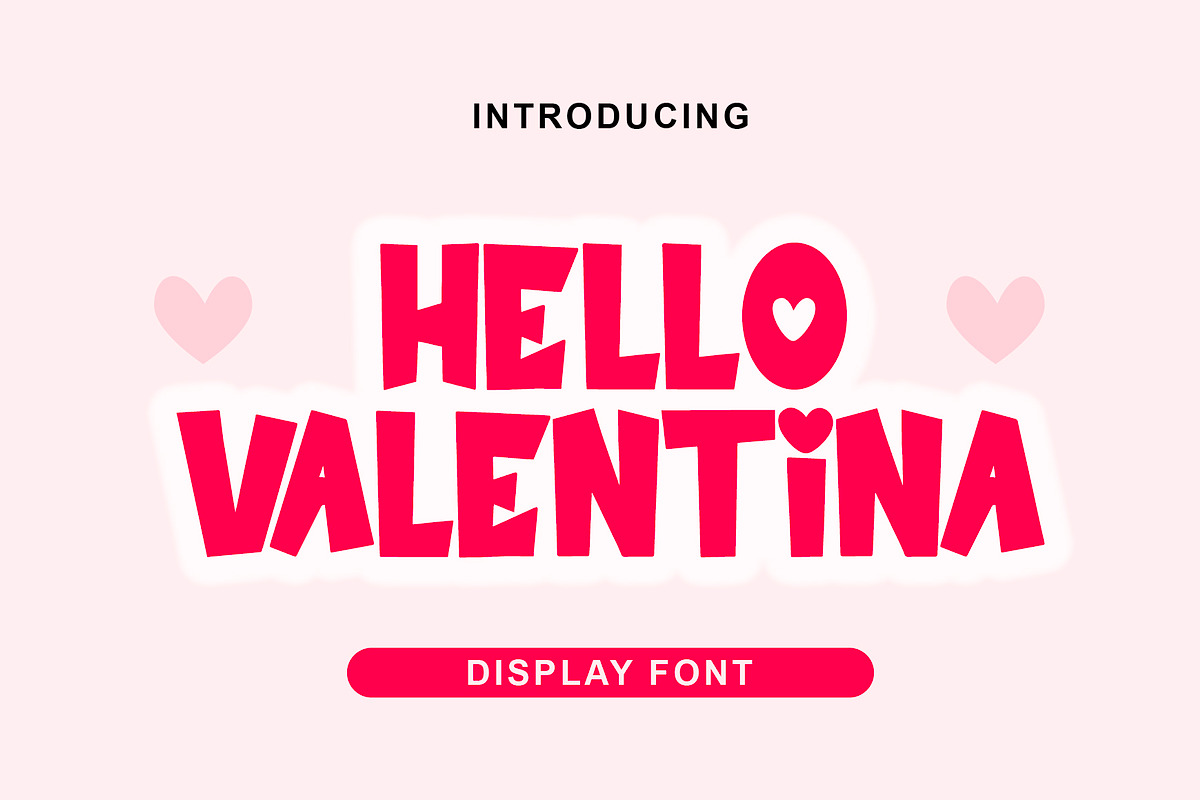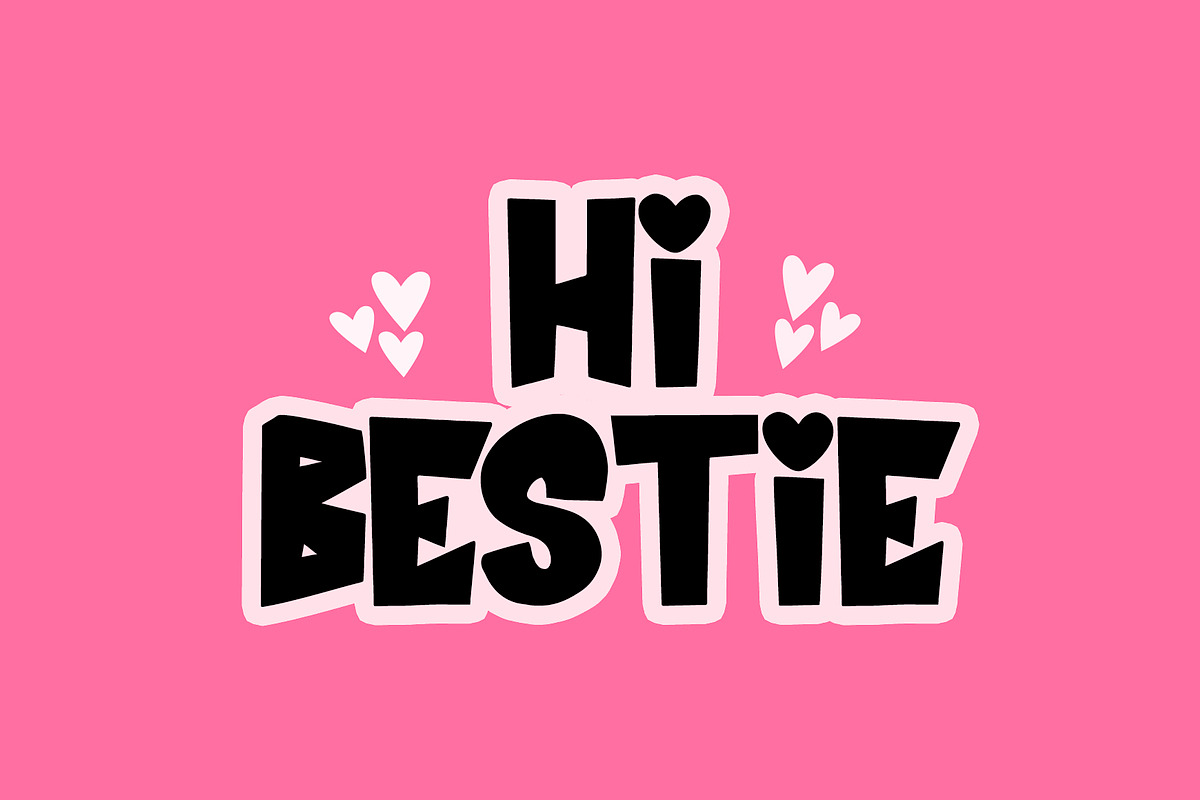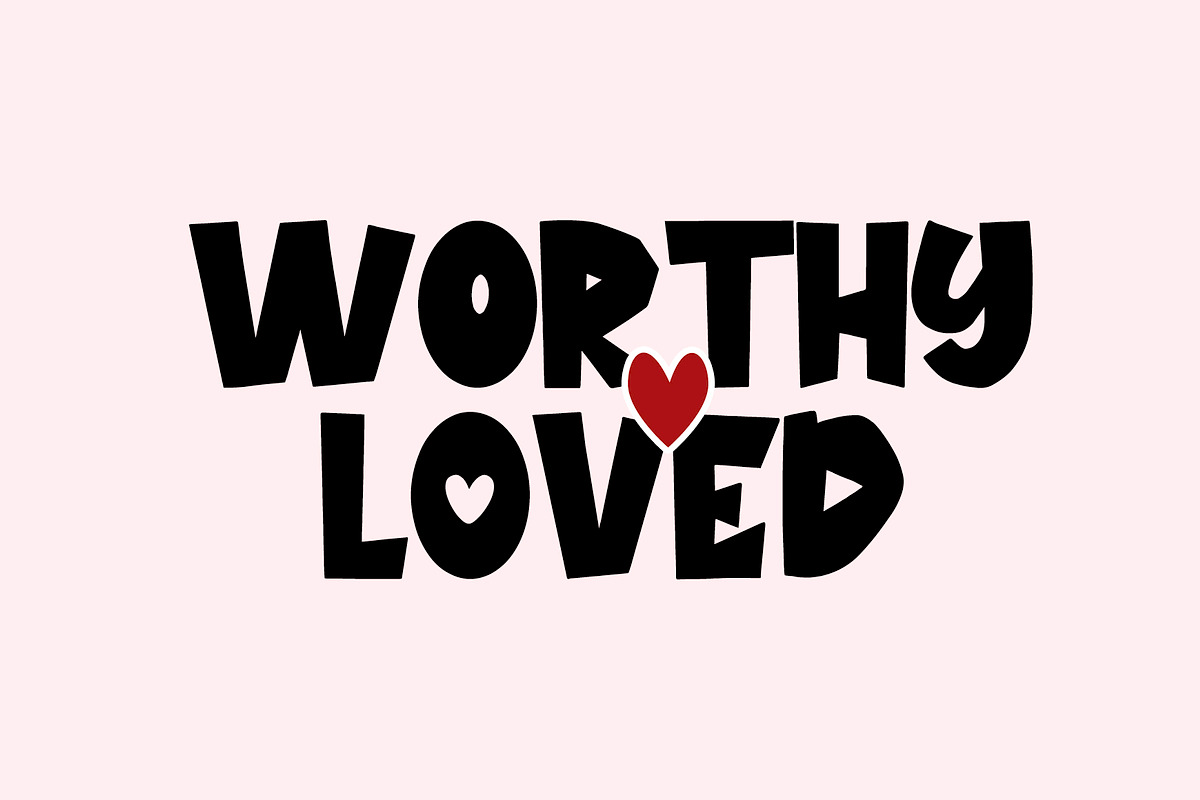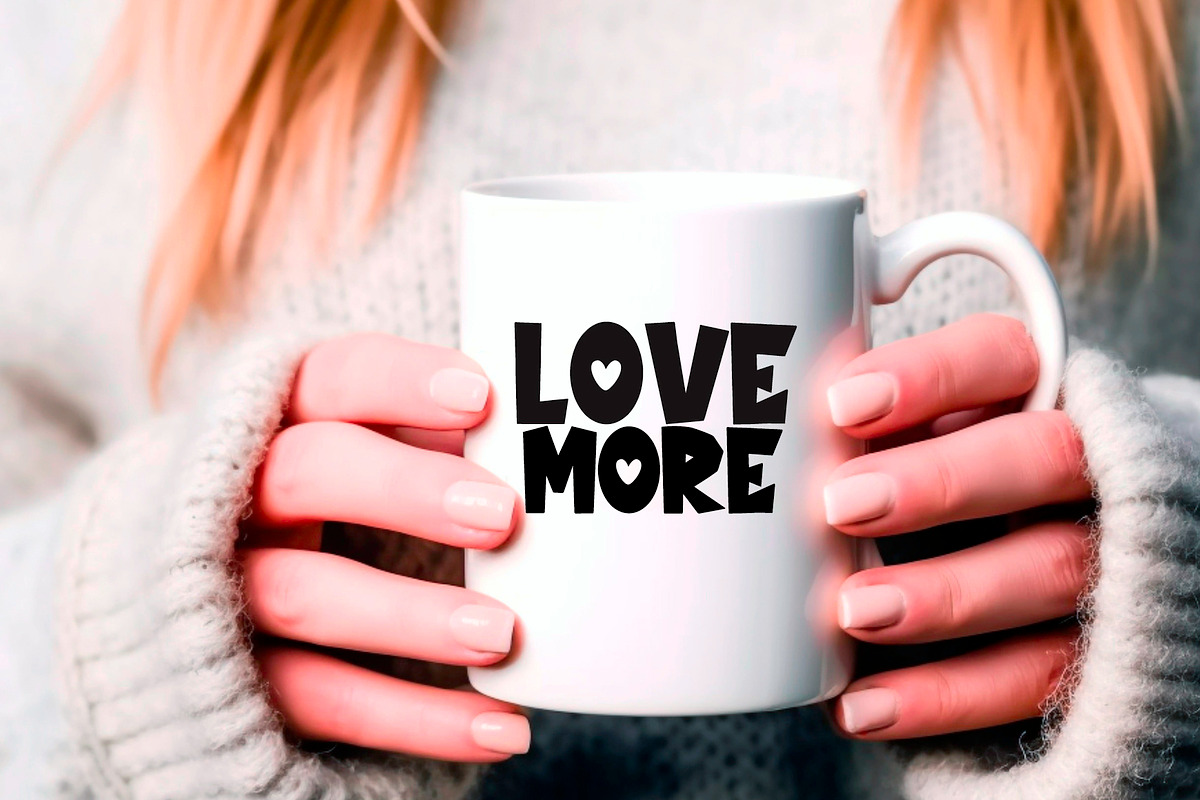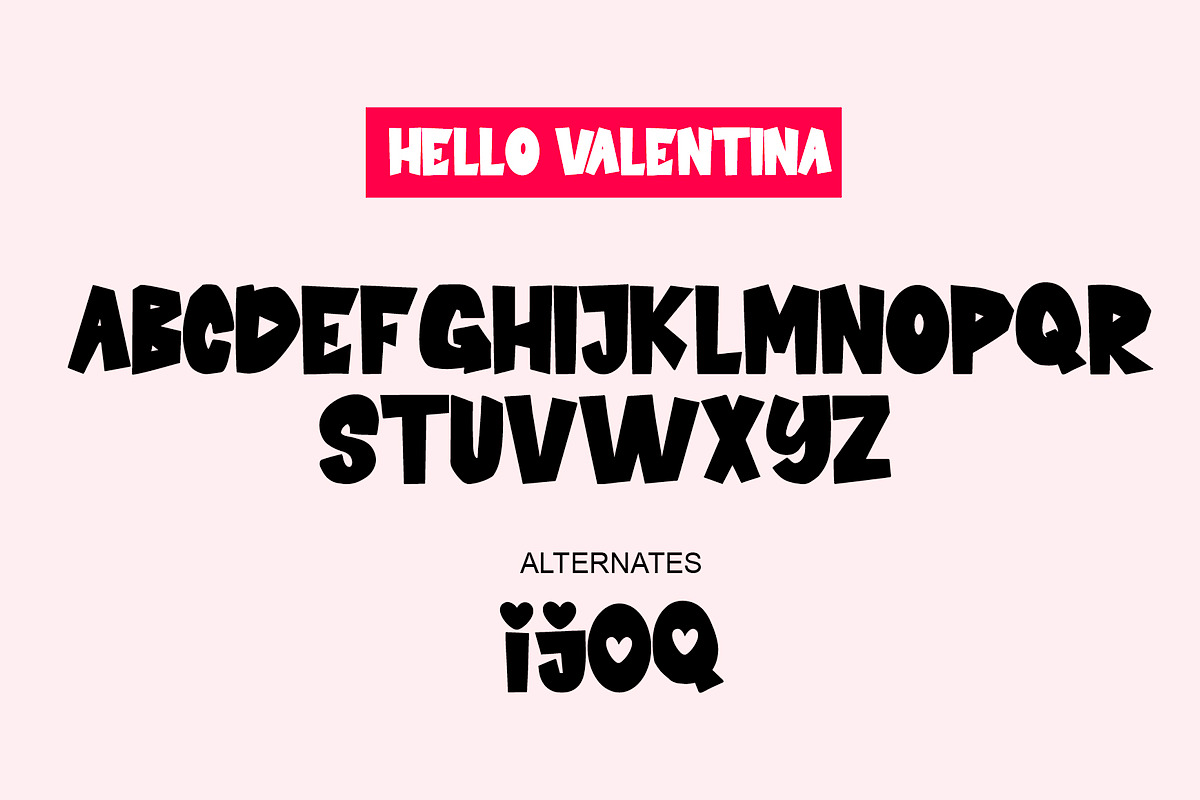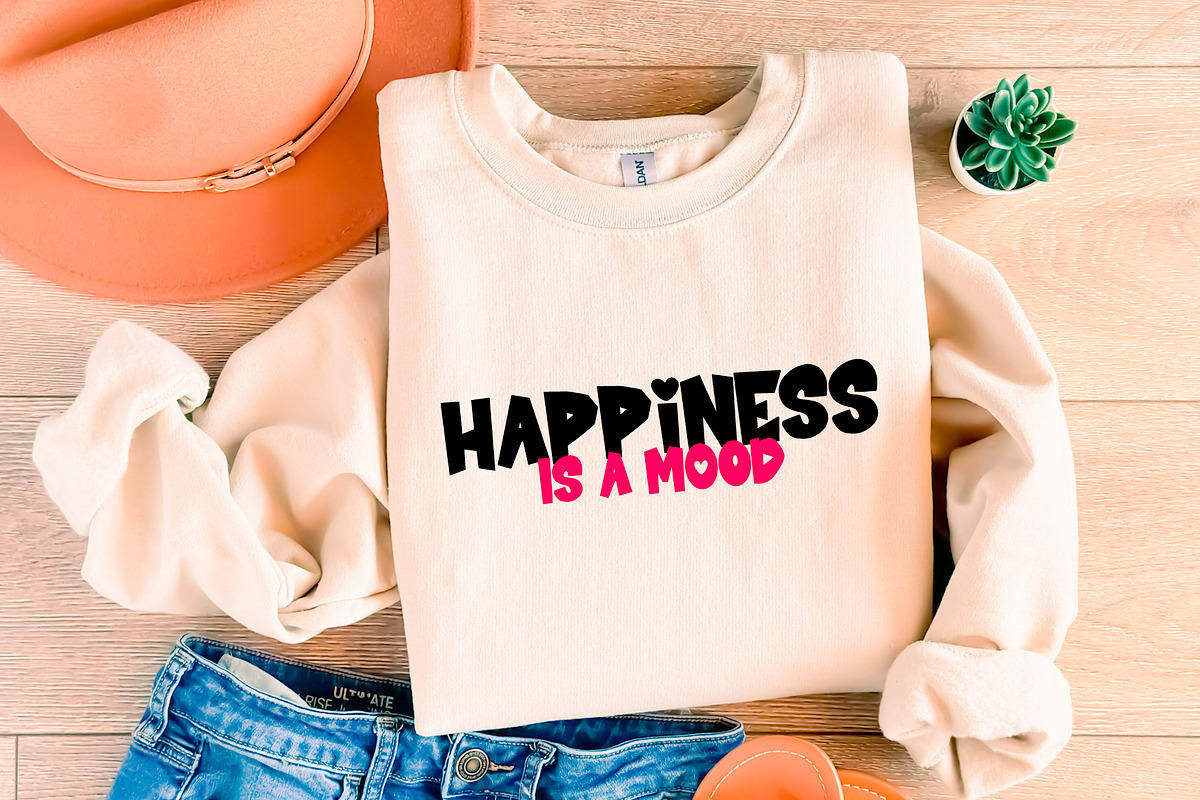
Hello Valentina | Display Font
Hello Valentina - Display Font is a font with distinctive handwritten characters perfect for branding projects, logos, wedding designs, media posts, advertisements, product packaging, product designs, labels, photography, cards, shirts, vinyl, mugs, quotes, invitations, stationery, and any project who need handwritten dishes.
This is an ALL CAPS font